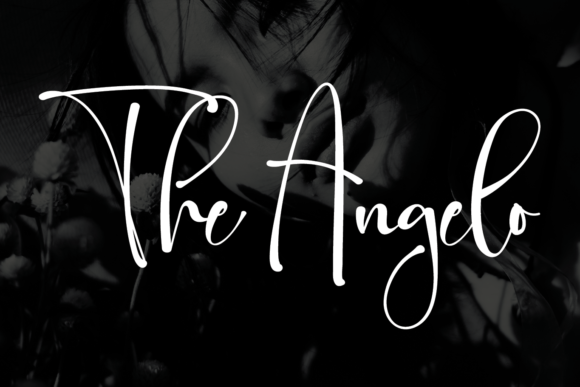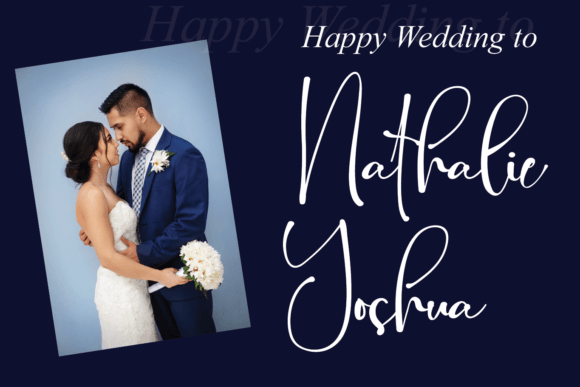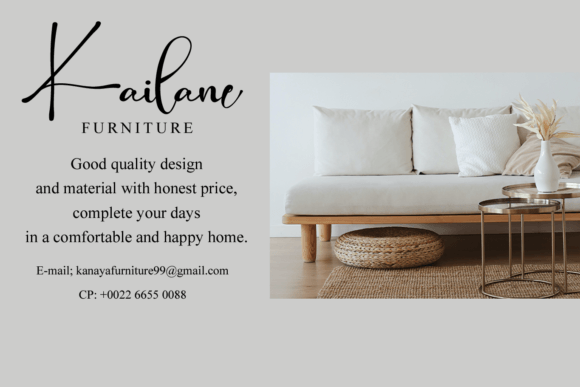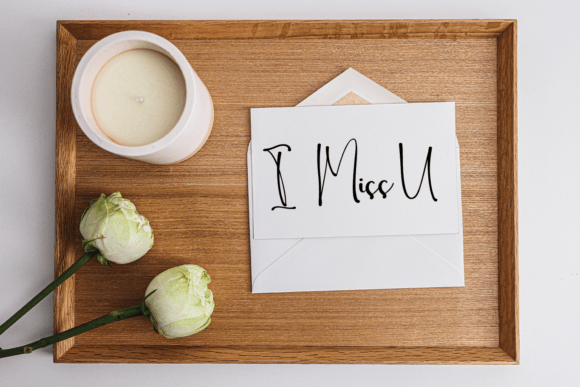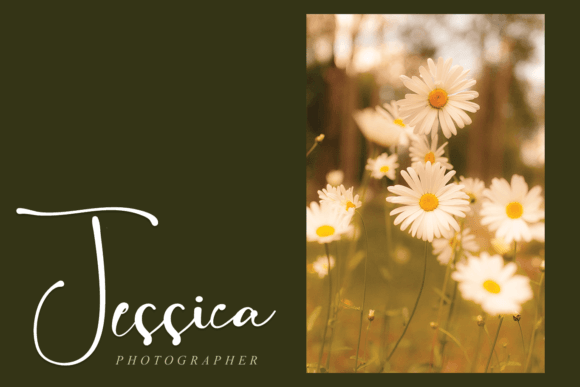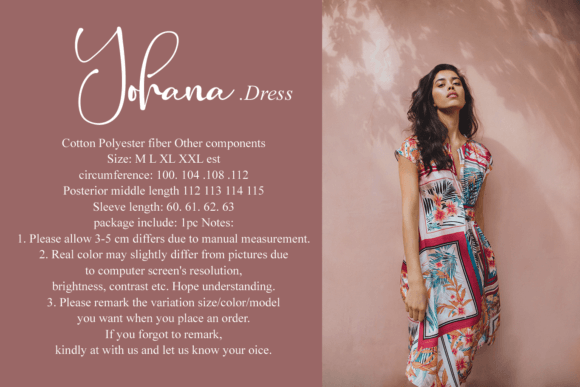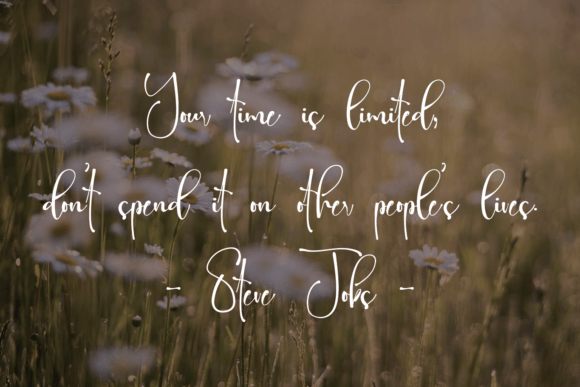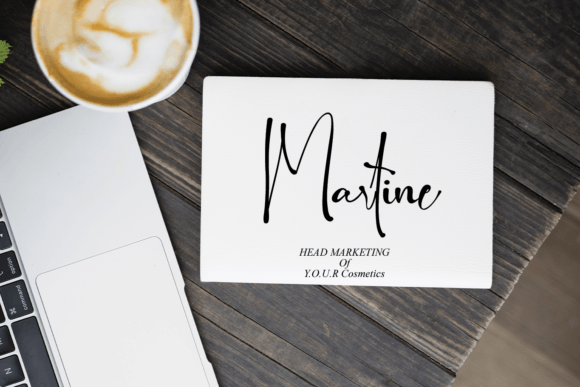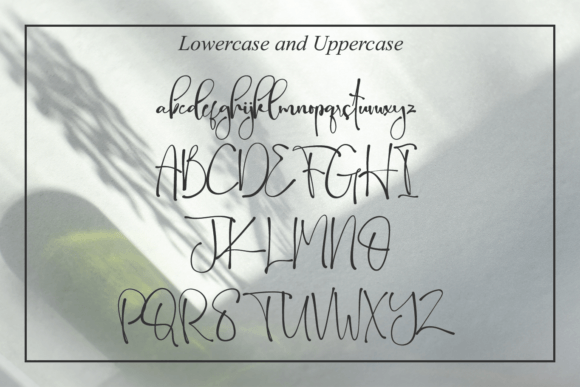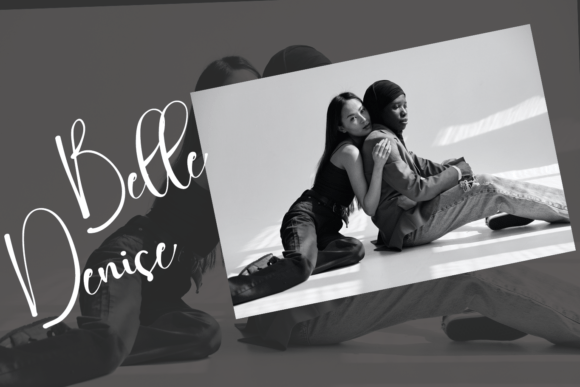
The Angelo Font
The The Angelo Font Download is a refined handwritten script that blends sophistication with asymmetrical beauty. Its graceful flow and unique charm make it a perfect choice for projects that need elegance with a modern twist. Designed to look both stylish and personal, this typeface elevates everything from invitations to professional branding.
A Sophisticated and Unique Style
The Angelo stands out because of its distinctive asymmetrical character shapes. Unlike rigid fonts that follow uniform structures, it has a free-flowing design that feels natural yet polished. The The Angelo Font Download adds originality while maintaining readability, making it suitable for creative and professional uses alike.
Perfect for Wedding Invitations
Weddings are all about creating memorable details, and typography plays a central role in setting the tone. Angelo is a font that instantly brings romance and sophistication to stationery. From invitations and save-the-date cards to thank you notes, the The Angelo Font Download ensures that every word looks stylish, heartfelt, and unforgettable.
Great for Greeting Cards and Quotes
Greeting cards and inspirational quotes require fonts that express emotion. Angelo’s elegant strokes make messages feel more personal and impactful. Whether you’re designing a birthday card, anniversary greeting, or framed wall quote, the The Angelo Font Download gives your text a handwritten quality that connects with the audience.
An Excellent Choice for Branding
For businesses, Angelo offers a balance of creativity and professionalism. Logos, business cards, and marketing materials all benefit from its stylish design. The The Angelo Font Download communicates sophistication while staying approachable, making it an excellent choice for boutique brands, beauty products, or creative agencies.
Adds Style to Thank You Cards
A simple “thank you” can feel much more meaningful when presented beautifully. With its graceful flow, Angelo turns appreciation notes into keepsakes. The The Angelo Font Download helps small business owners, event planners, and creatives deliver gratitude in style.
The Angelo adapts well to both digital and print projects. Use it for Instagram posts, blog headers, packaging designs, or DIY crafts. Its versatility allows it to fit seamlessly into personal projects as well as professional campaigns. Designers love the The Angelo Font Download because it offers flexibility without losing its distinct personality.
Why Designers Choose The Angelo
Many script fonts look stylish but sacrifice clarity. Angelo avoids this by combining unique strokes with consistent readability. It is elegant without being overly decorative, which makes it practical for everyday use. The The Angelo Font Download provides both beauty and usability, ensuring it stays valuable in any font library.